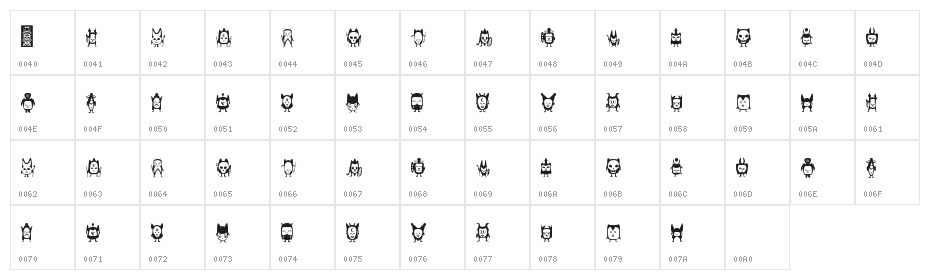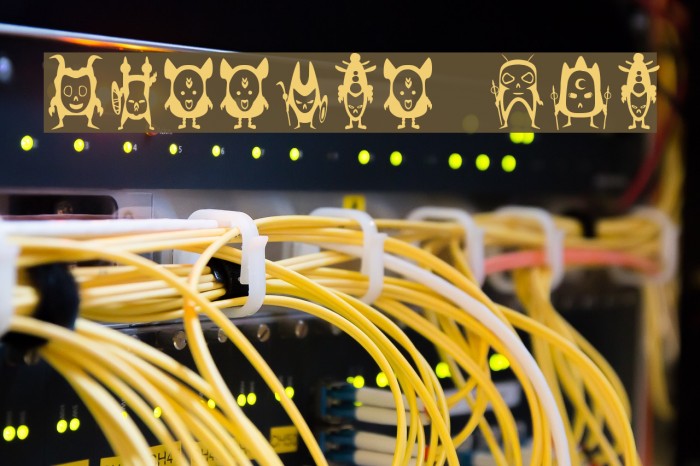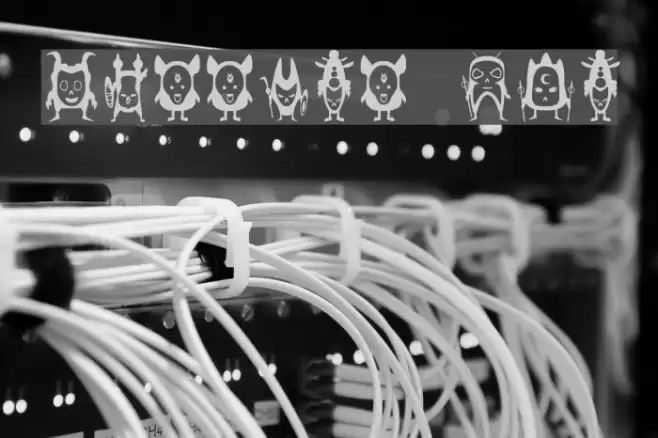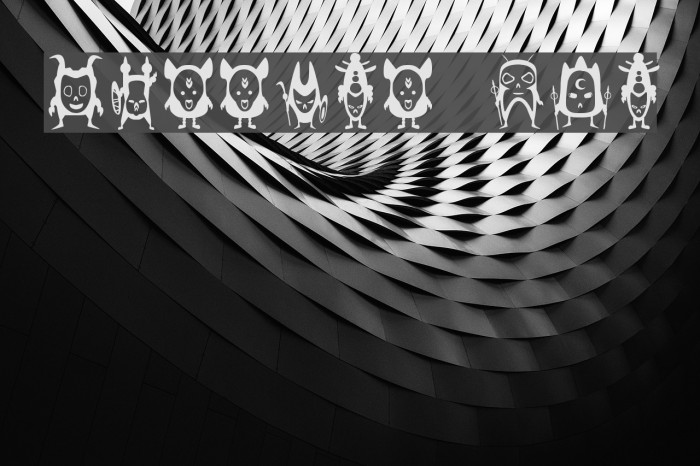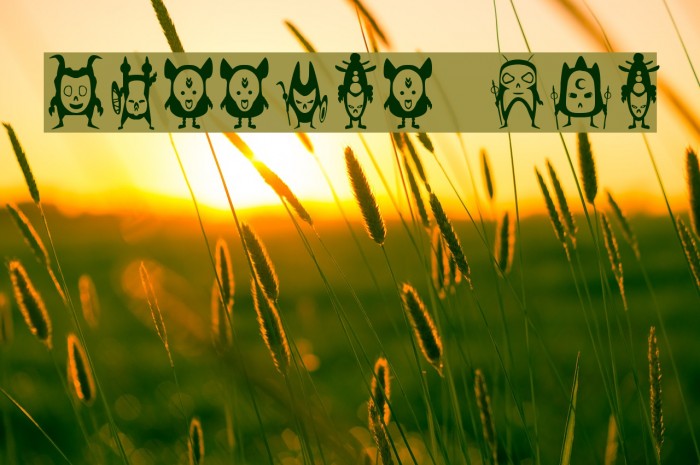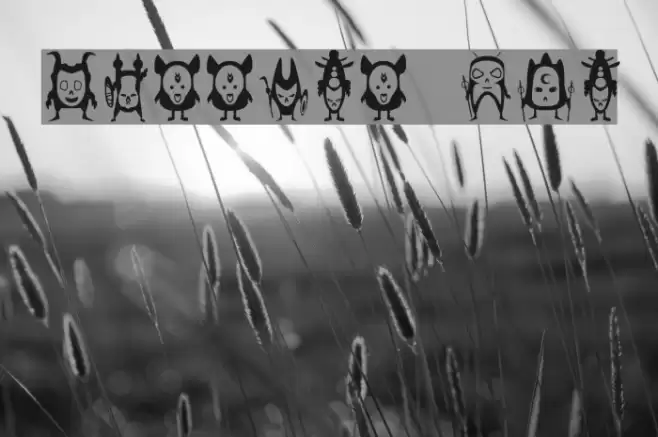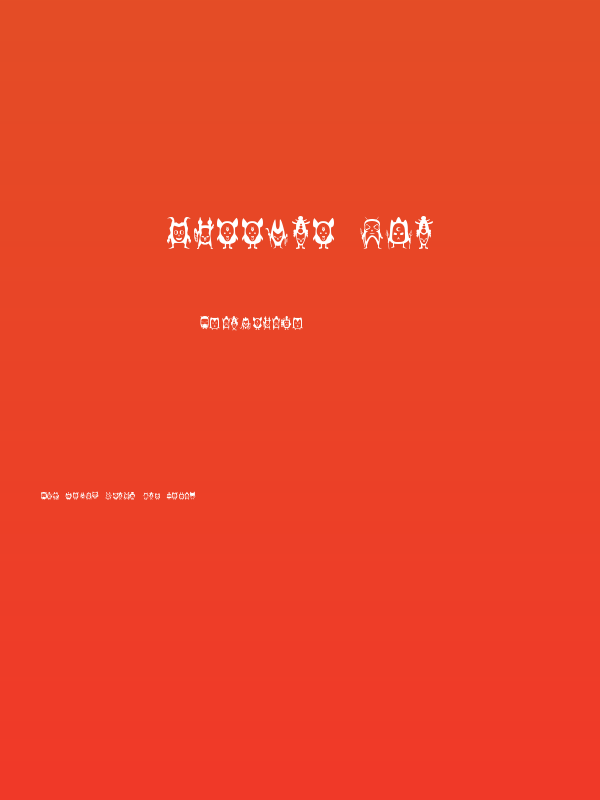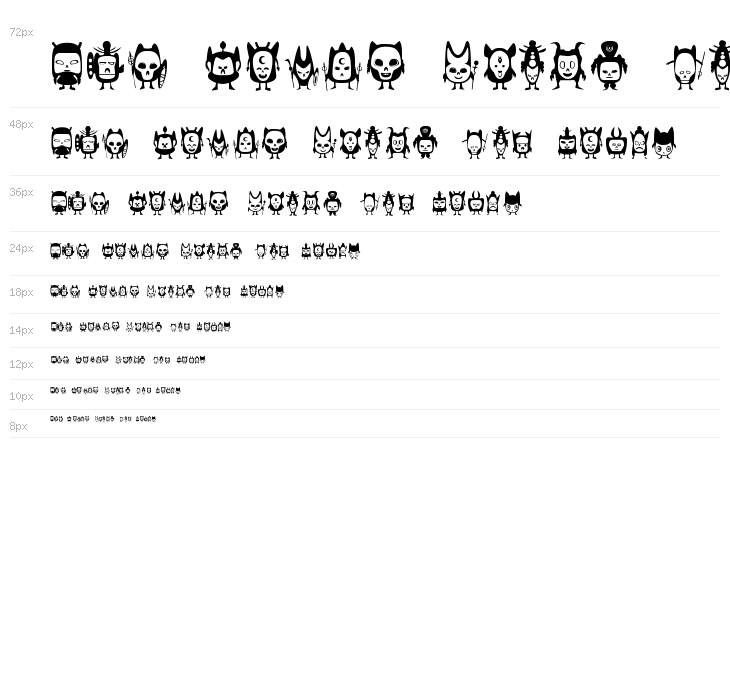
warrior dco Font
warrior dco Description
This is not a traditional font but rather a collection of whimsical, character-based designs. Each character is a unique, stylized figure with distinct features, resembling cartoonish warriors or mythical creatures. The designs are bold and playful, with exaggerated shapes and expressive faces. These characters are more suited for decorative purposes rather than text-based applications. The overall style is imaginative and artistic, making it ideal for creative projects that require a touch of fantasy or humor.
| Use Case | Logos, Illustrations, Themed Decorations |
| Proposed Projects | Ideal for creative projects such as children's book illustrations, game design, or themed event decorations. |